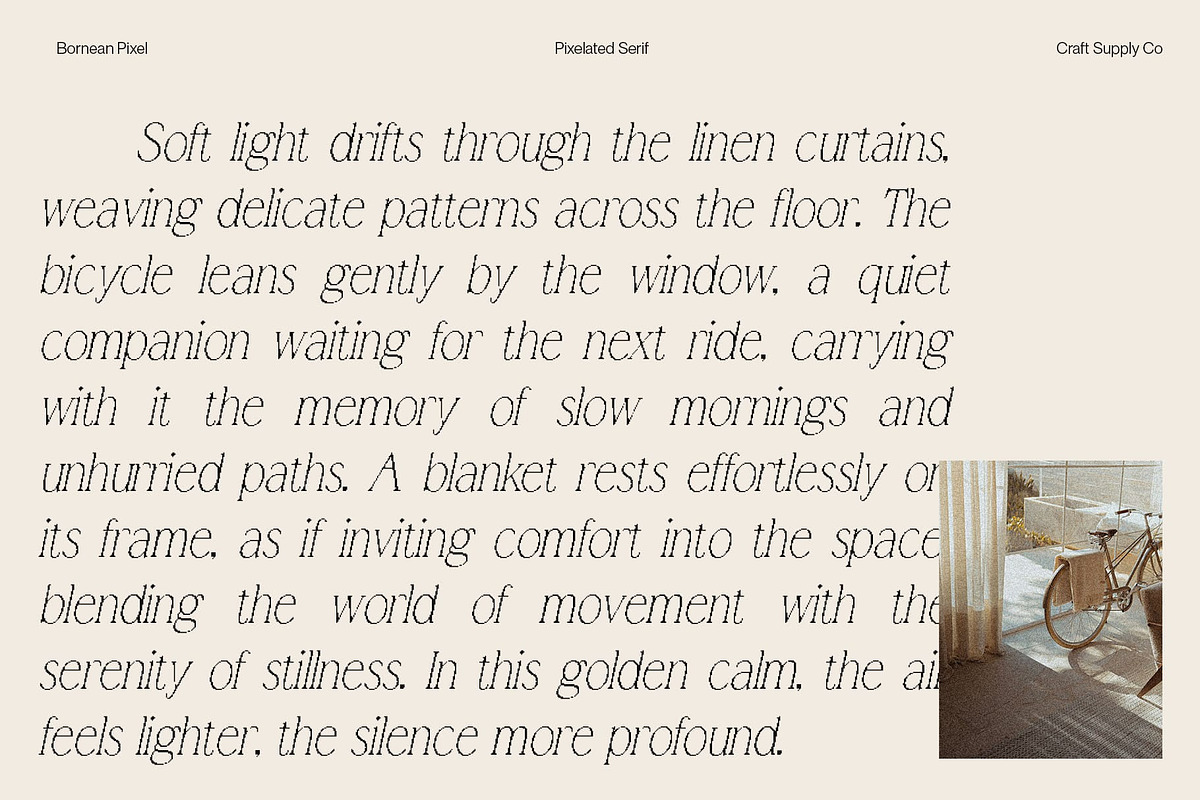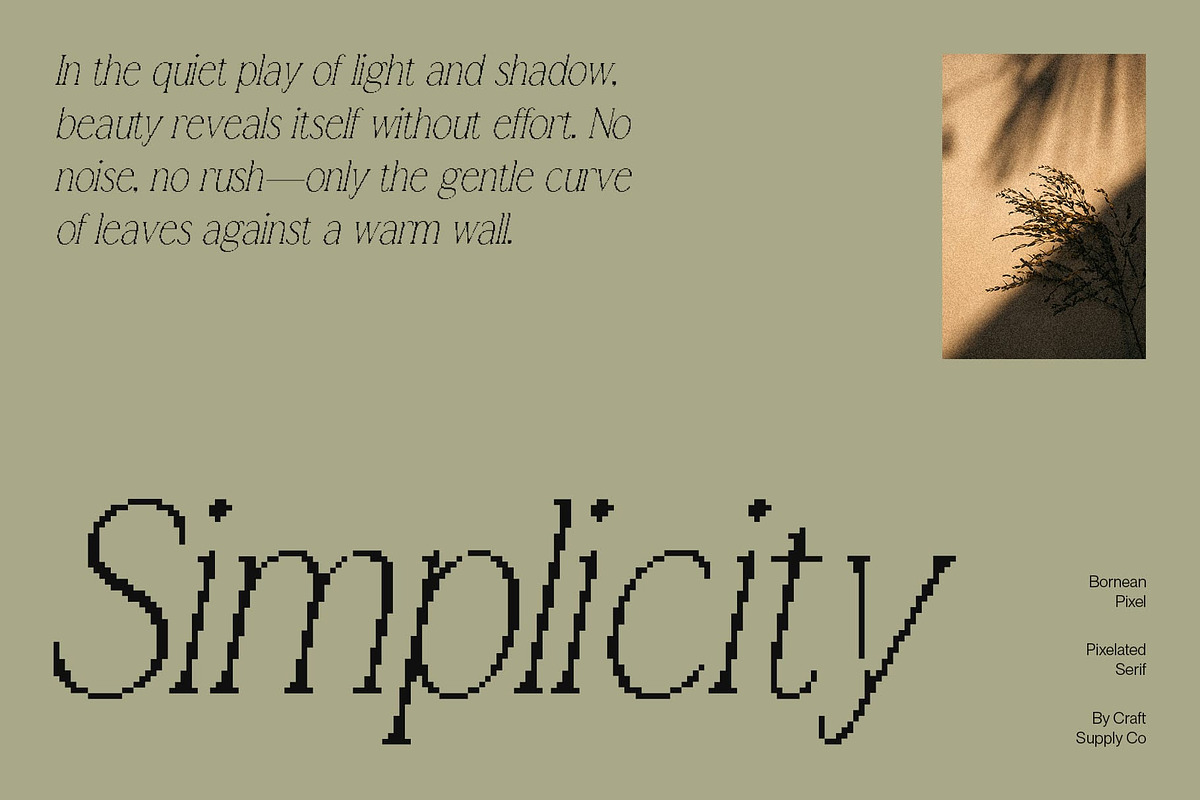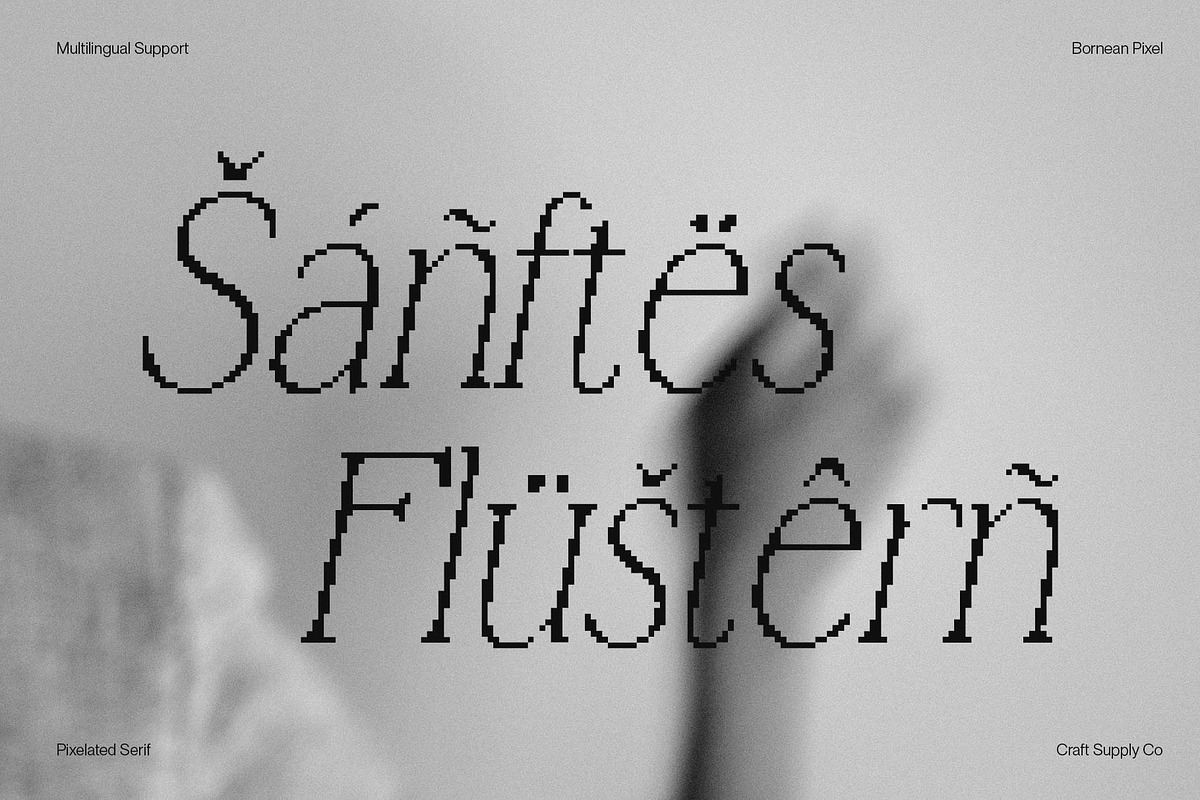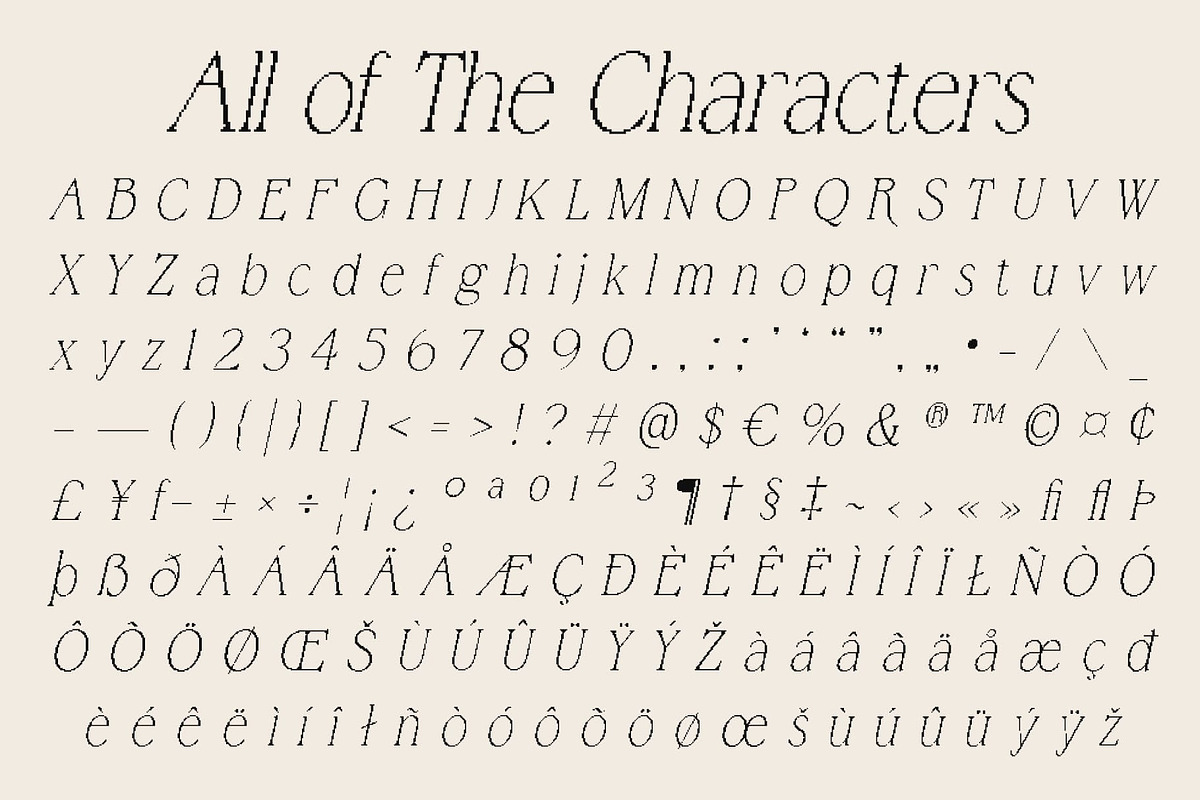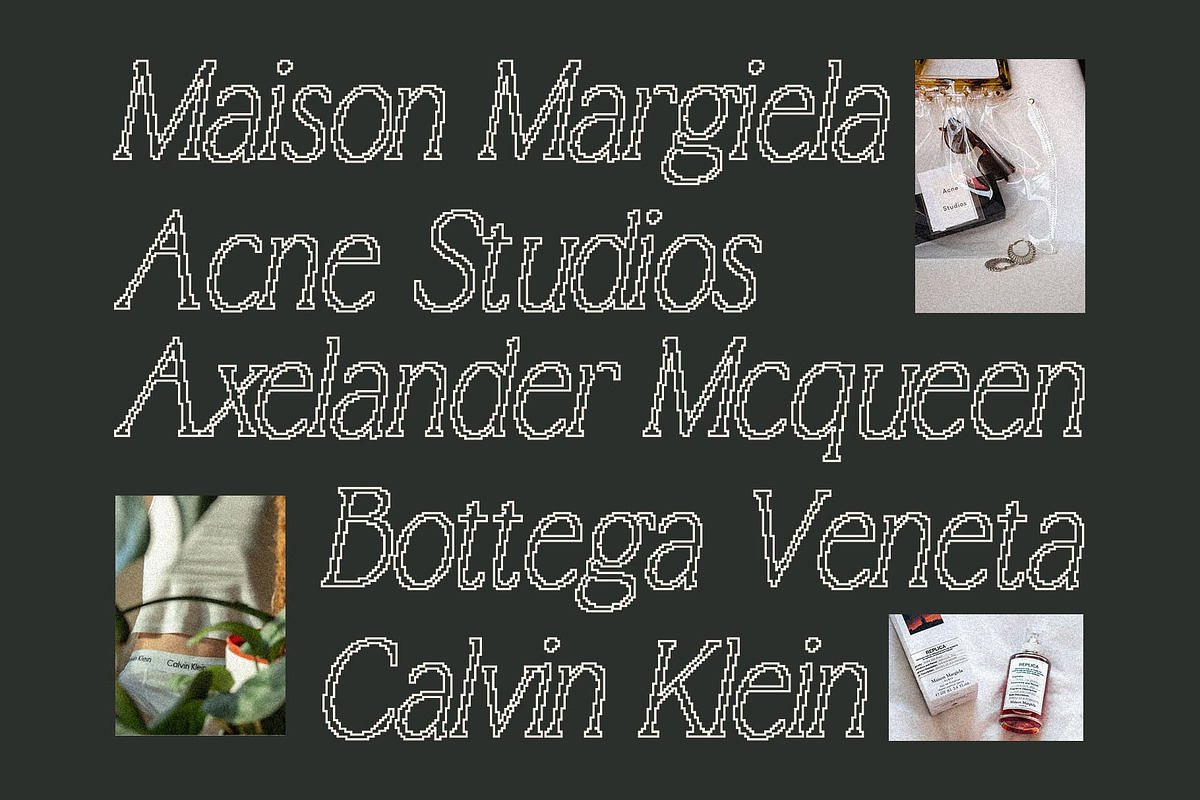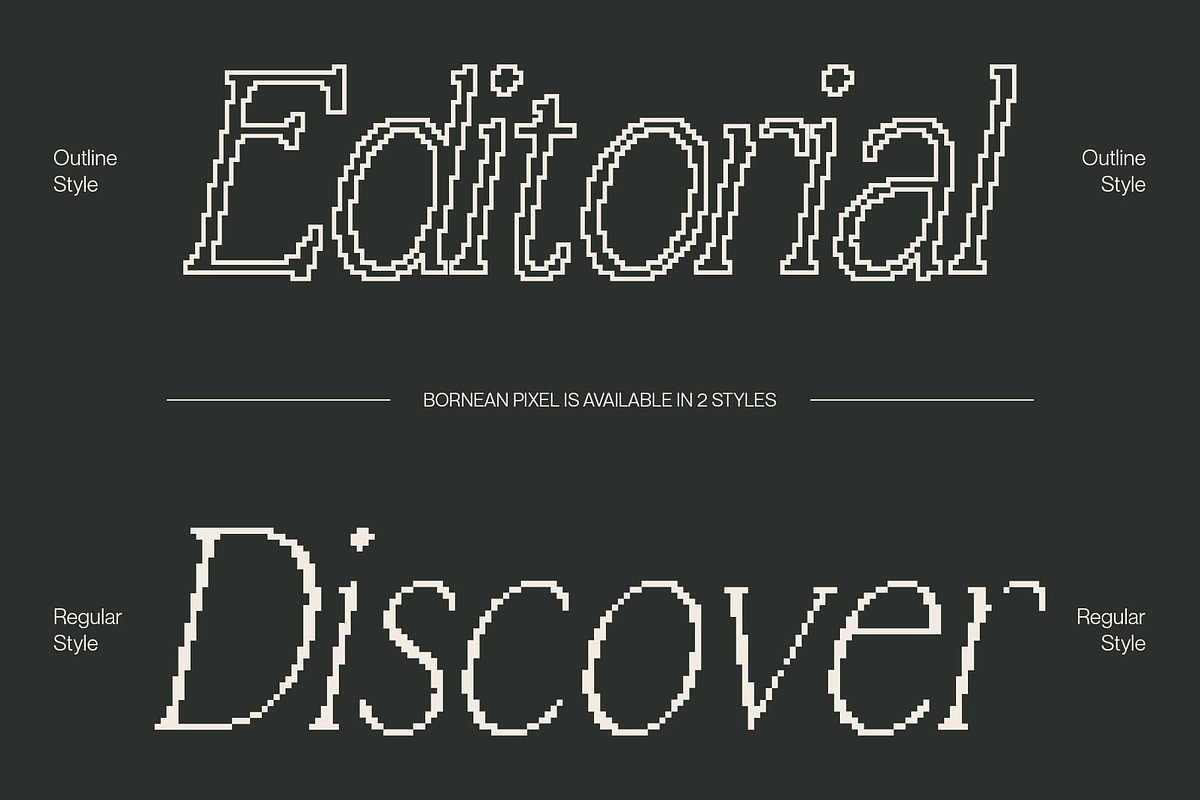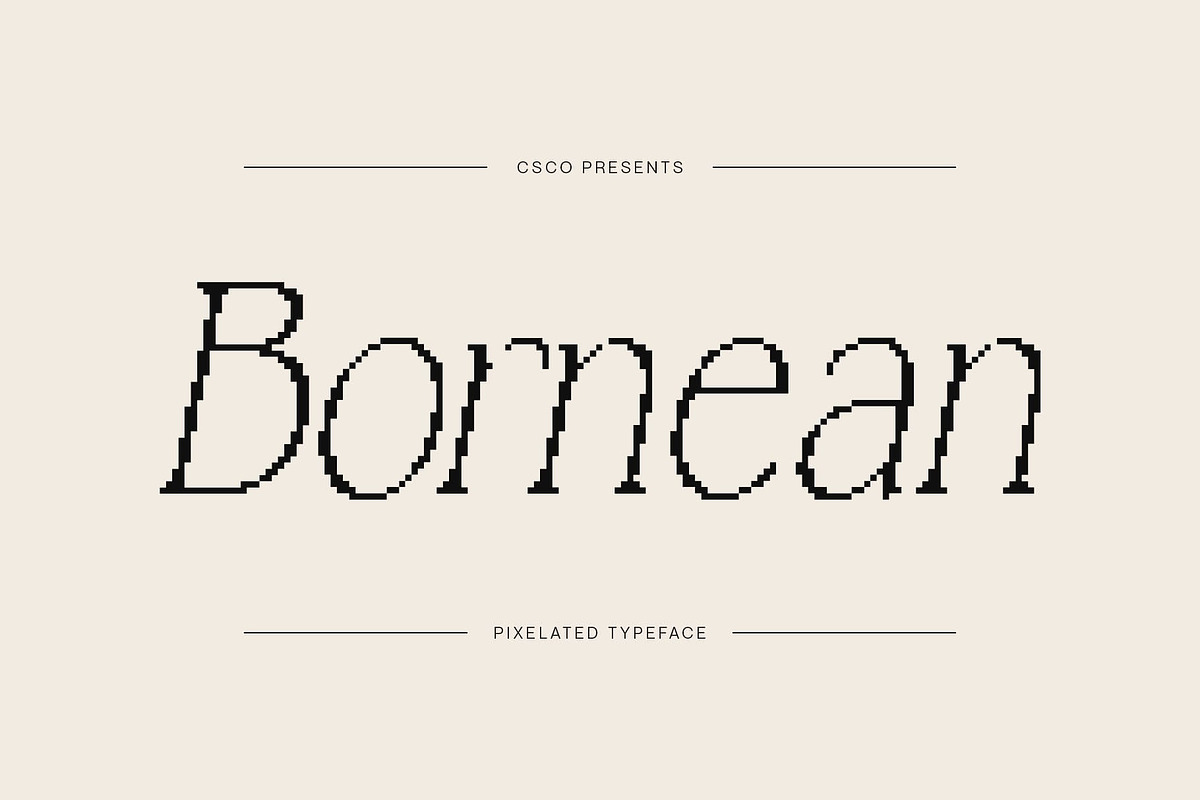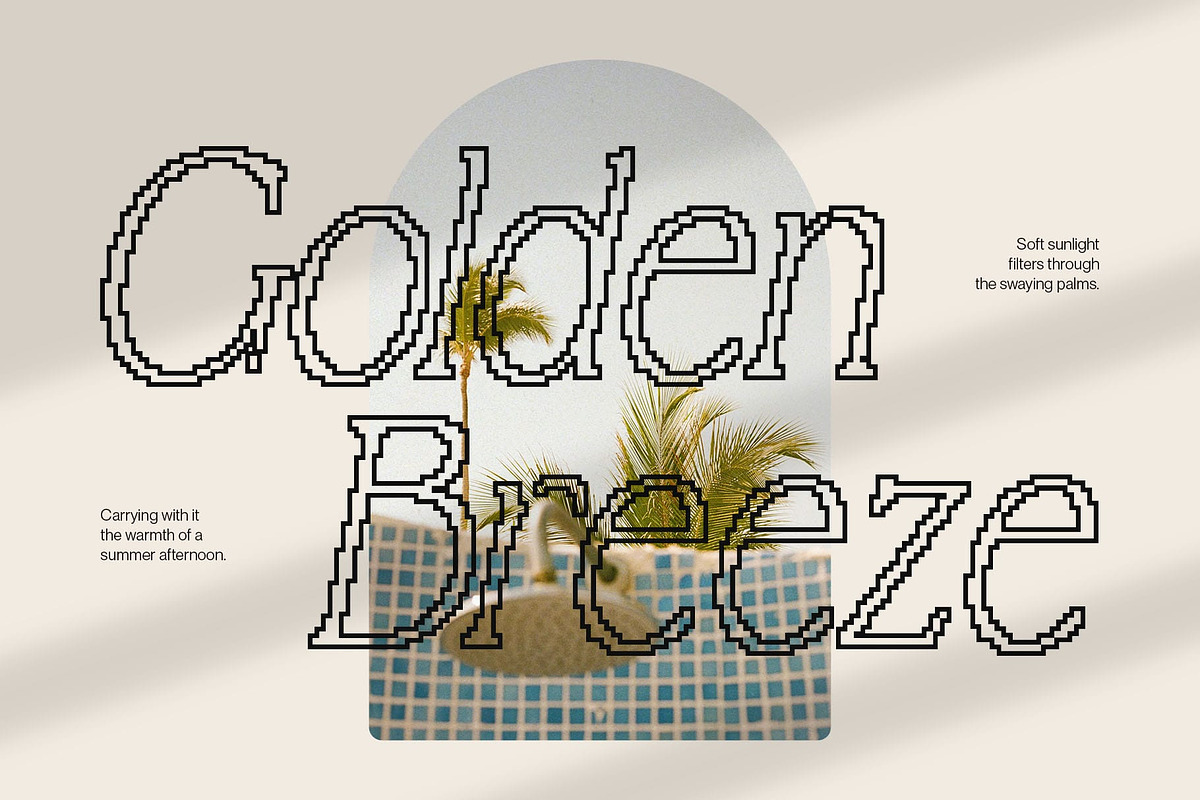
Bornean Pixel
Bornean Pixel – Minimalist Pixel Serif Font
Pixel Font with Elegant Simplicity
Clean Pixel Aesthetic Bornean Pixel blends the nostalgic charm of pixel design with the elegance of serif forms. Its simple yet refined structure gives a minimalist and clean impression while keeping the distinctive pixelated texture intact.
Elegant and Personal Character With its subtle serif details, this font carries a unique personality that feels both digital and sophisticated. The elegant pixelated style makes it stand out as more than just a retro-inspired font it’s a statement of modern minimalism.
Perfect for Branding and Fashion Bornean Pixel is ideal for branding projects, from fashion labels and logos to modern product design. Its clean and stylish look pairs beautifully with soft or neutral color palettes, enhancing its sophisticated vibe.
Versatile Pixel Display Font Beyond branding, this font also works well for posters, packaging, creative editorials, and digital design projects. It’s a pixel serif that merges elegance with modern utility, making it both unique and timeless.